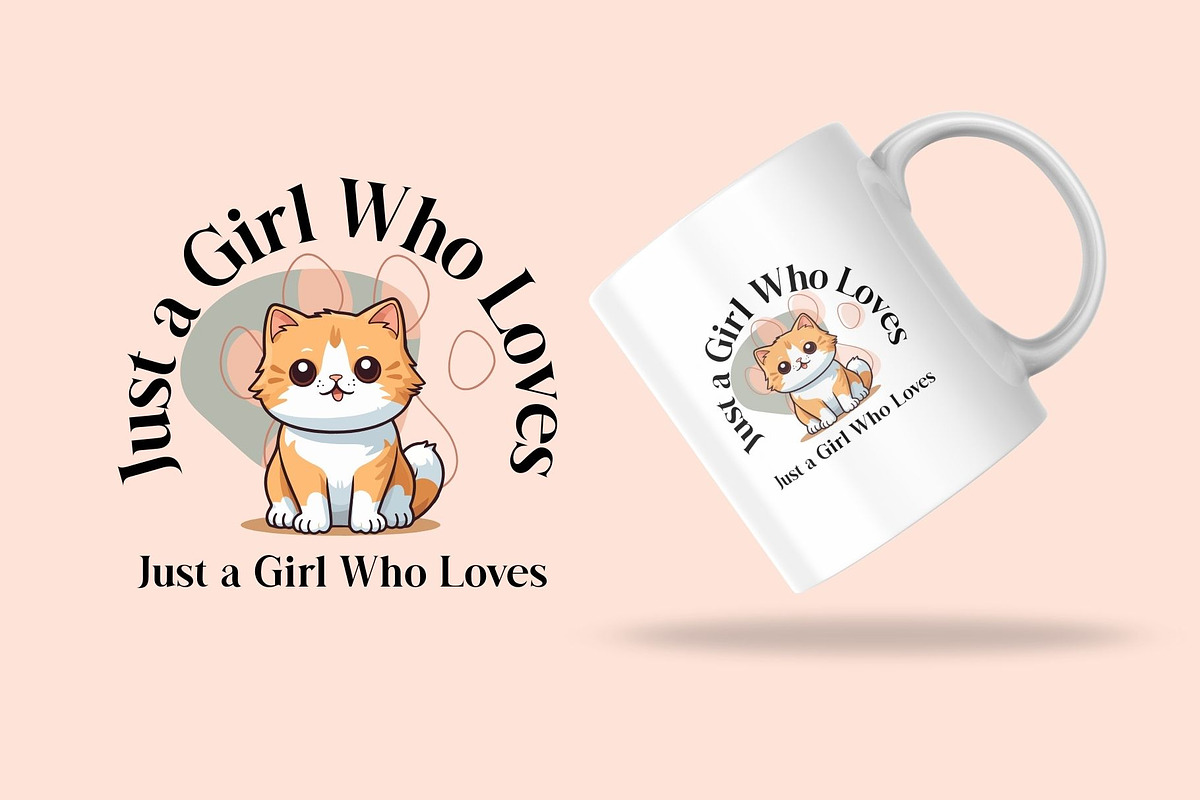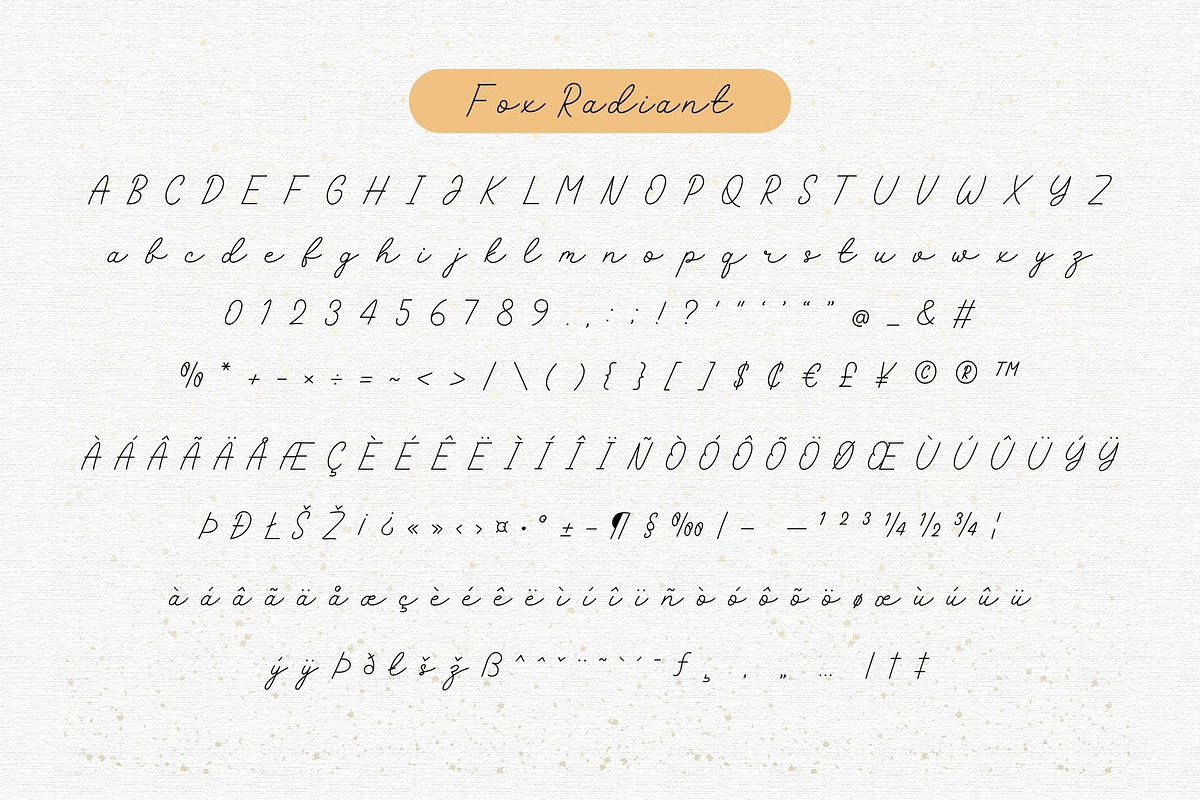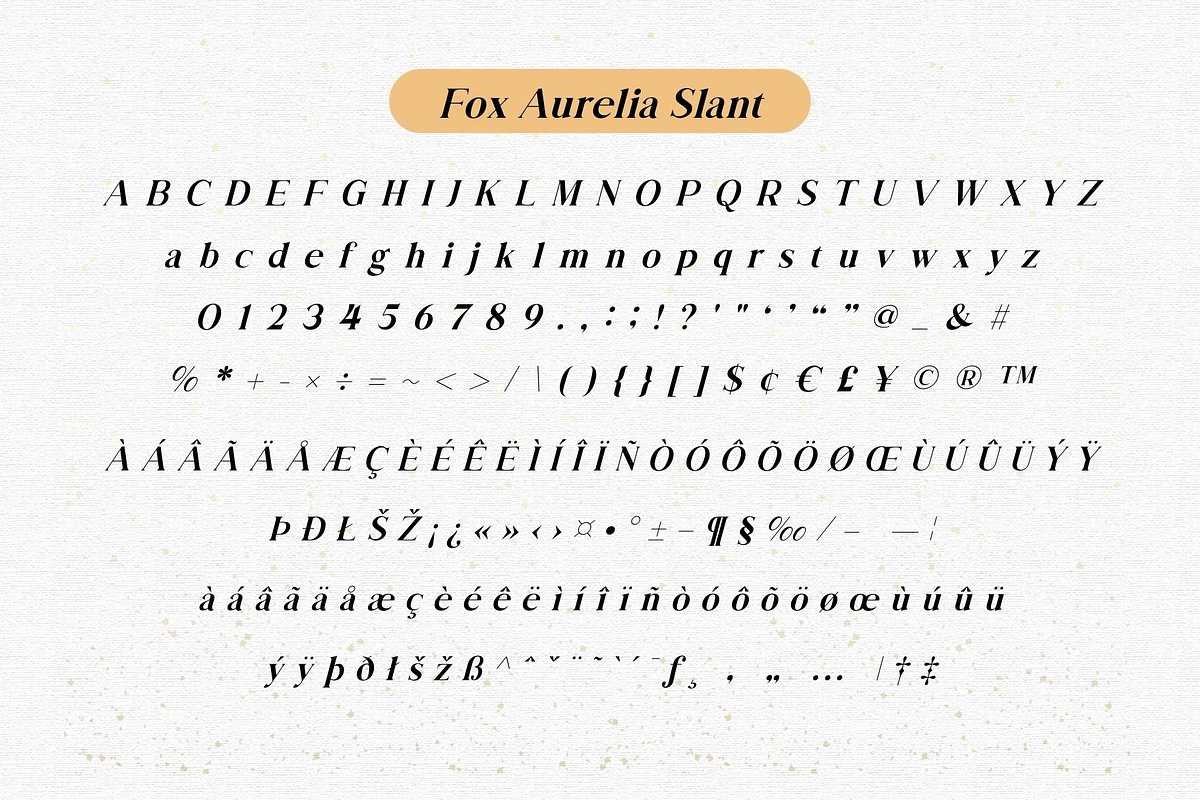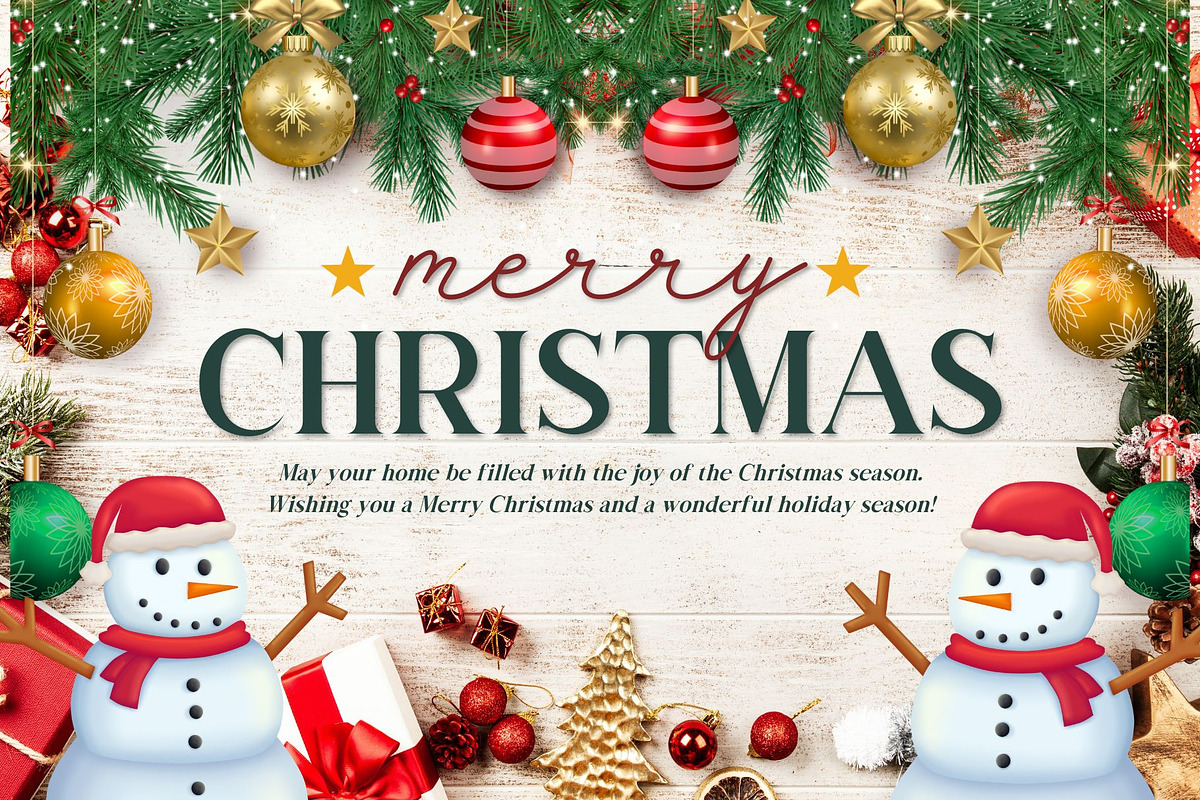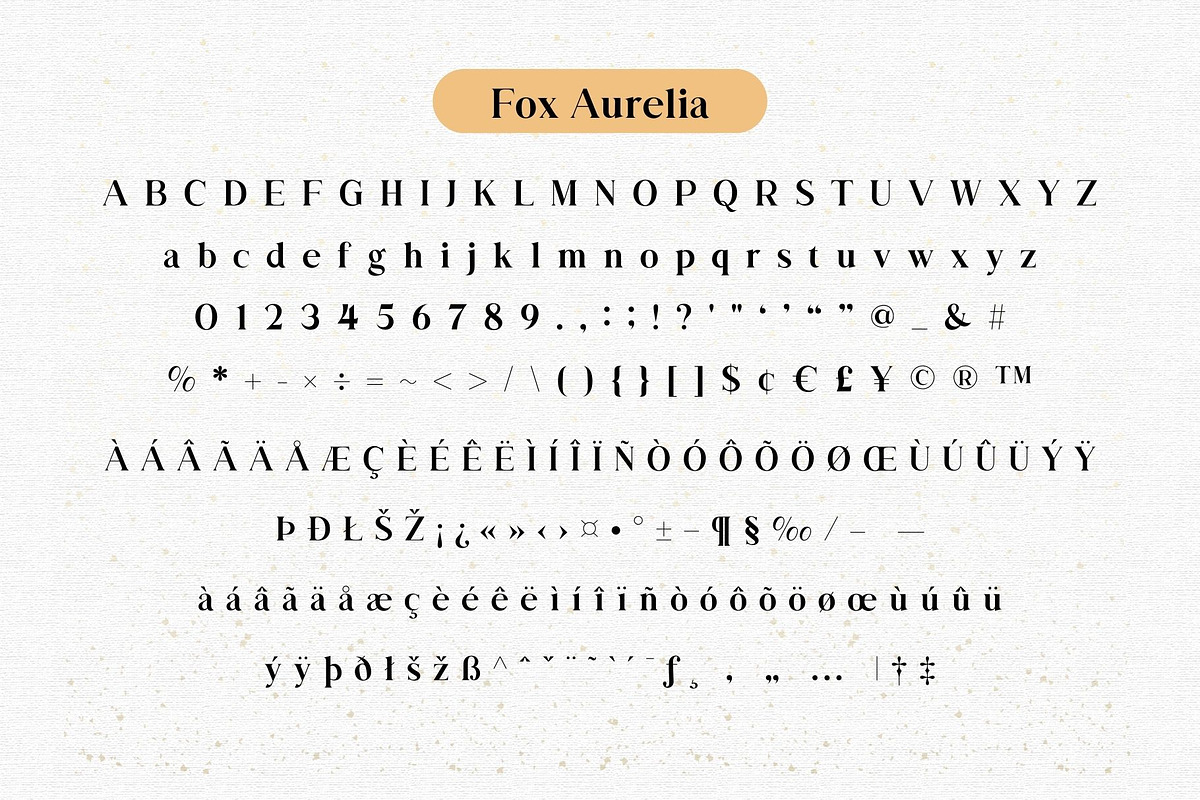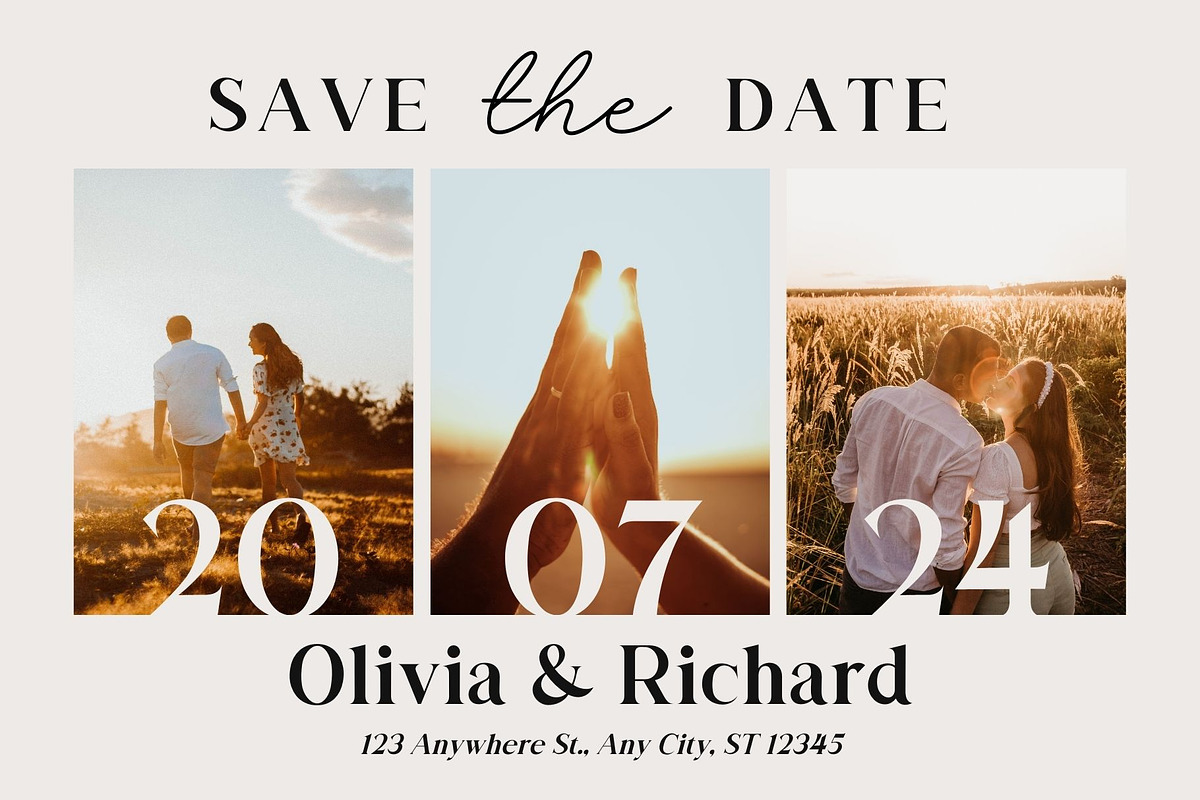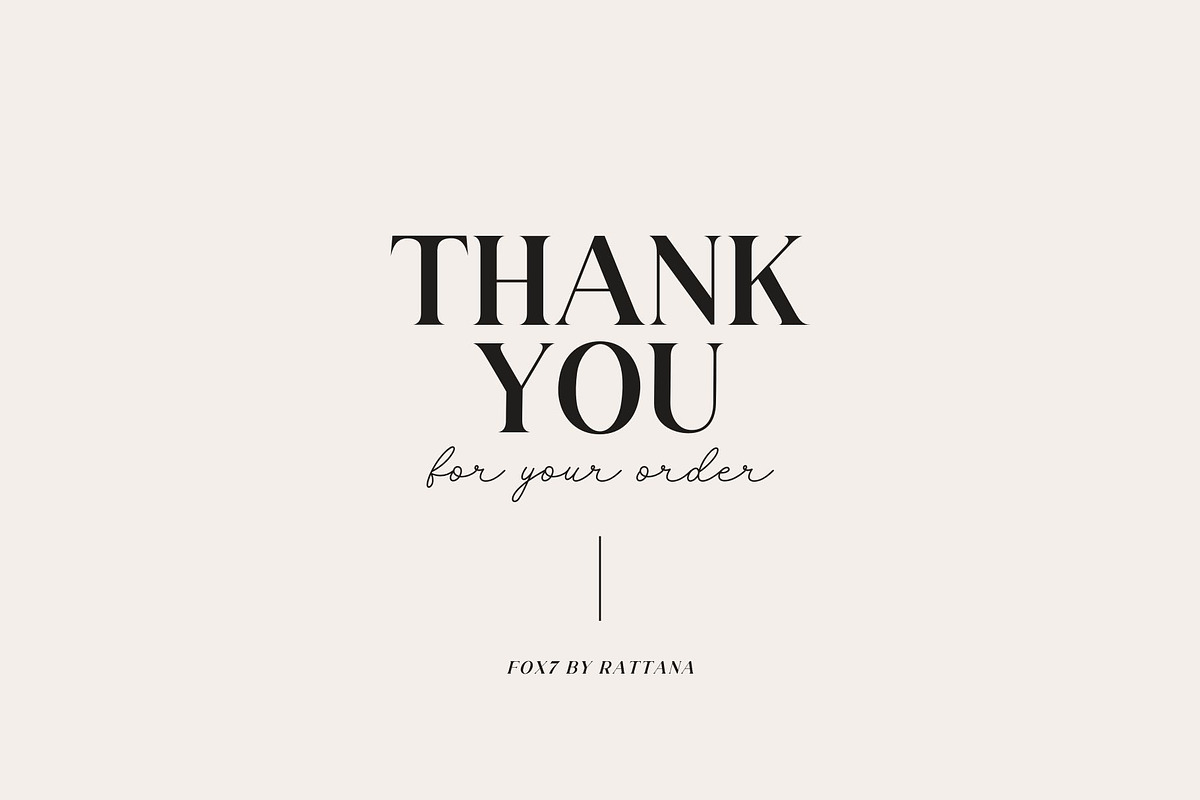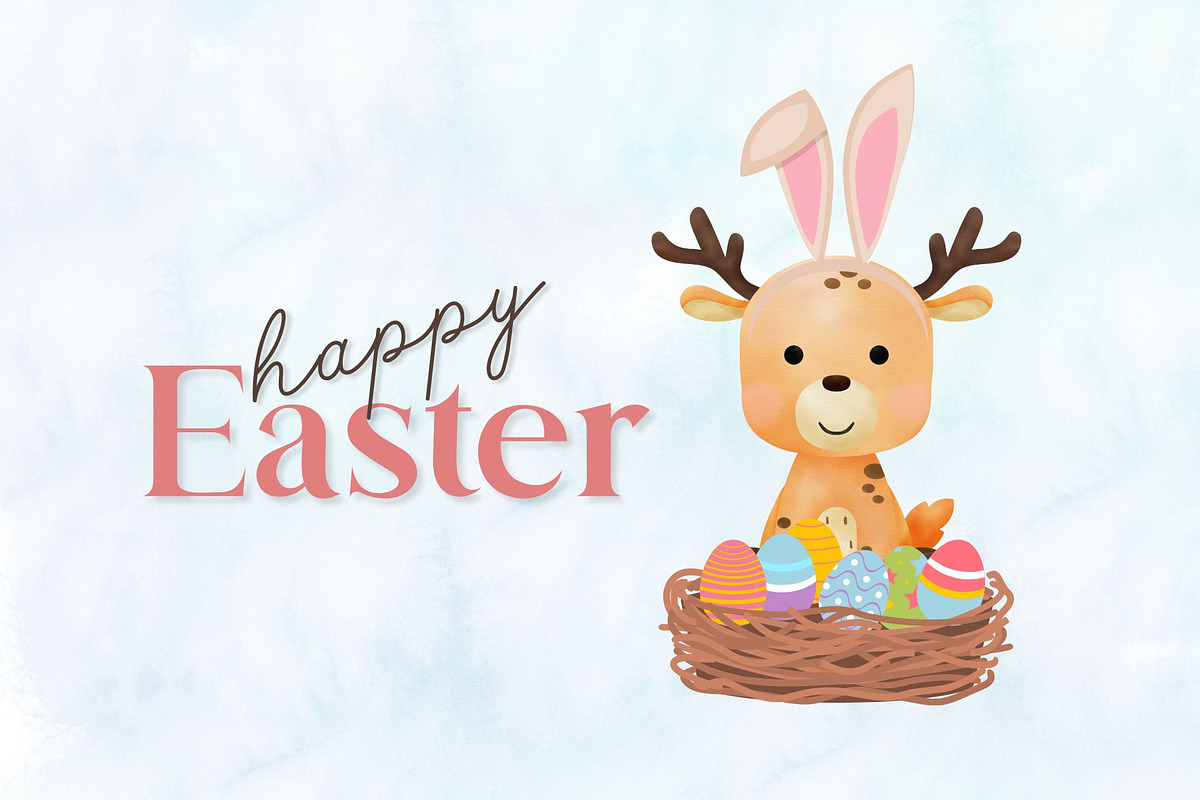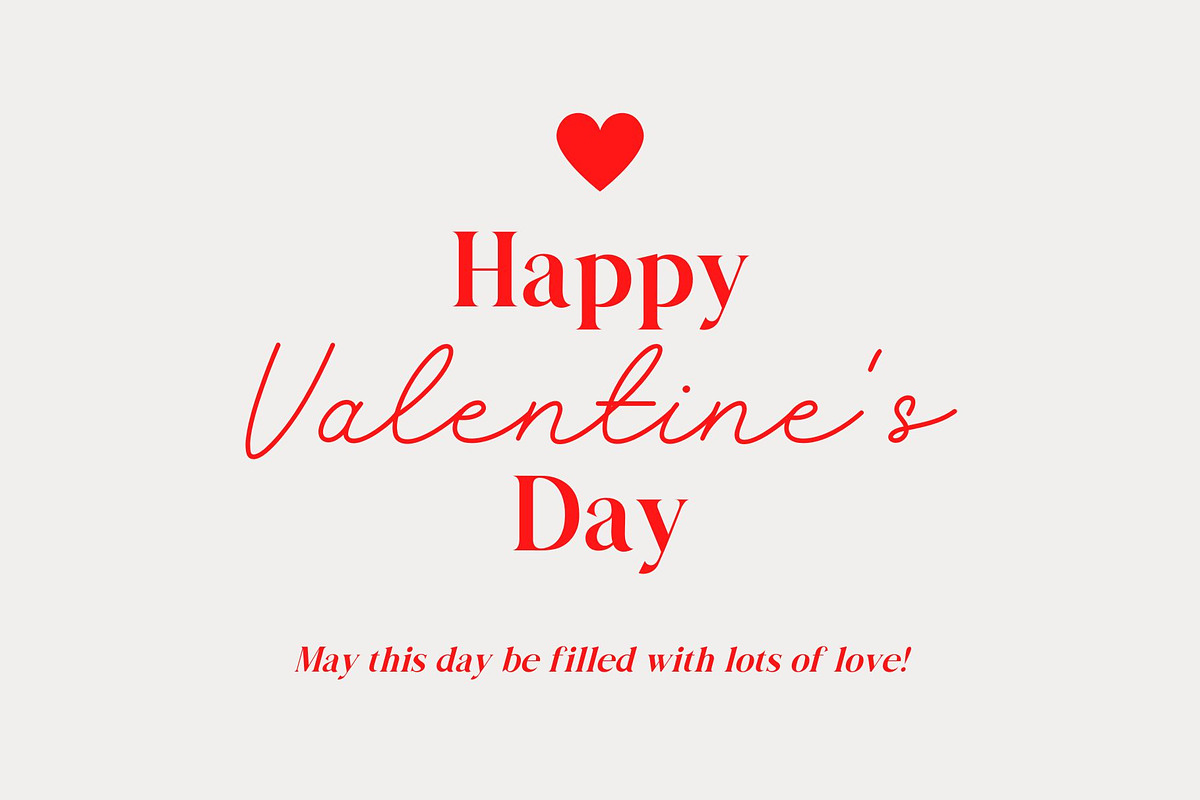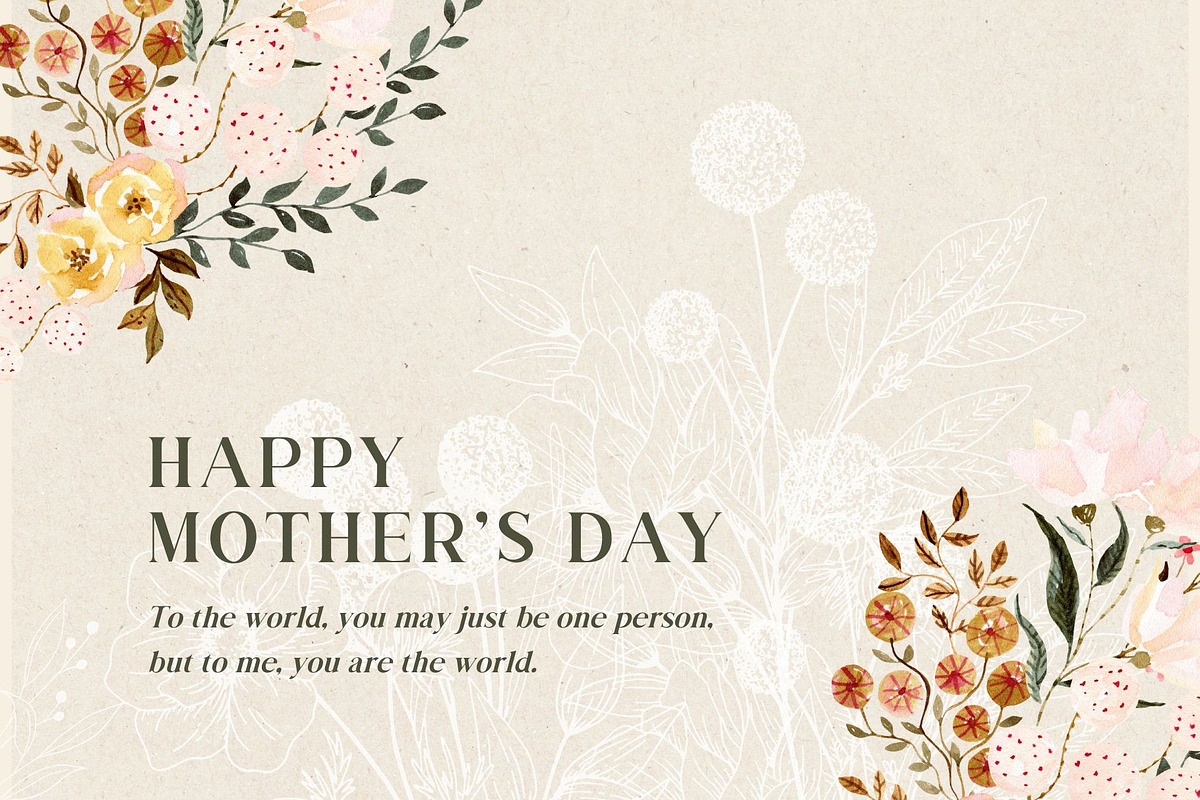
Fox Aurelia (Slant) & Fox Radiant
✨ Fox Aurelia, Fox Aurelia Slant & Fox Radiant – Elegant Font Trio ✨
Introducing the Fox Aurelia Font Trio — a beautiful set of typefaces combining timeless elegance with modern charm. This trio offers everything you need for creating sophisticated, stylish designs.
Fox Aurelia is a bold, high-contrast serif font with a classic and luxurious feel — perfect for branding, editorial layouts, and invitations.
Fox Aurelia Slant offers a dynamic slanted version of the serif, bringing extra movement and style to your typography.
Fox Radiant is a graceful handwritten script that adds a soft ideal for logos, wedding stationery, and special occasions.
Together, these three fonts create a harmonious blend of structure and flow, perfect for high-end, romantic, and minimalist design projects.